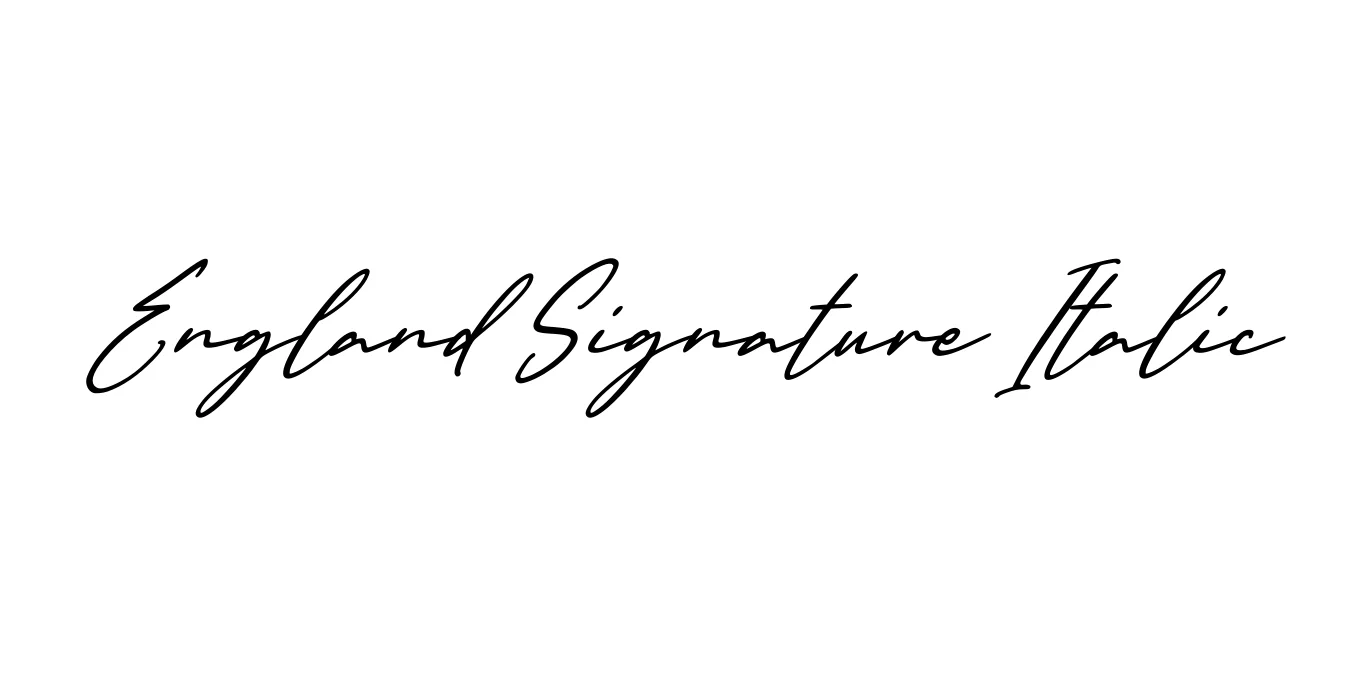
England Signature Italic
| Font Name | England Signature |
| Category | Script / Signature |
England Signature Italic is an elegant and sophisticated handwritten script font designed to mimic the natural, fluid penmanship of a professional signature. Characterized by its slanted, cursive strokes and delicate ligatures, this typeface brings an air of exclusivity and high-end craftsmanship to any digital or print layout. It was developed to bridge the gap between traditional calligraphy and modern digital typography, offering a seamless flow that looks authentic and effortless on various background textures.
This typeface is particularly popular in the world of branding and fashion, where a luxurious and personal touch is required. Since its release, England Signature Italic has become a go-to choice for designers looking to create high-impact logos, wedding invitations, and social media graphics. Its balanced proportions and expressive swashes ensure that it remains legible while still maintaining a strong, artistic personality that stands out in contemporary design projects.
England Signature Italic Best Uses
Ideal for creating luxurious logos and personal brand identities that require a human touch.
Perfect for high-end wedding invitations, greeting cards, and personalized stationery.
Frequently used as a stylish watermark for professional photographers and artists.
Great for creating sophisticated quotes, Instagram stories, and lifestyle blog headers.